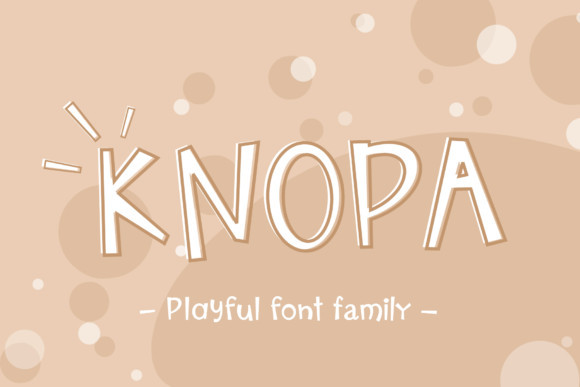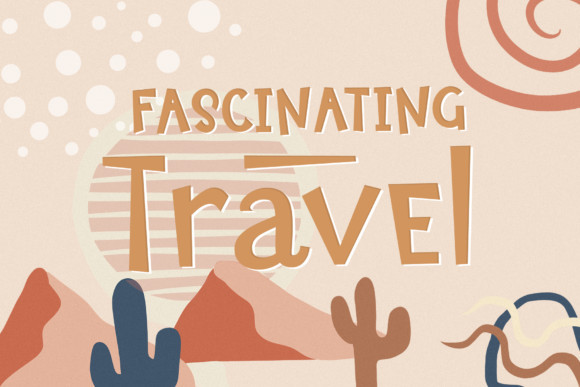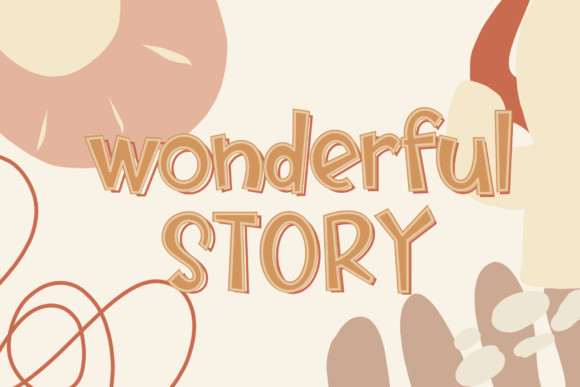
Knopa Font
Knopa is a simple, quirky and a bit childish display font. A bit sloppy and asymmetrical, this font will make your designs feel more fun and approachable.